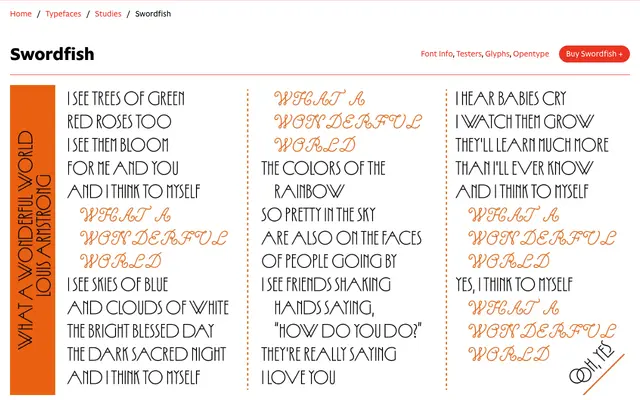
Swordfish
CAST · Giulio Galli · 2023
Swordfish specimen from CAST
An all-caps geometric display face by Giulio Galli that marries 1920s avant-garde letterform proportions with a jumping baseline borrowed from 1950s jazz record cover typography.
Drawing on typefaces such as Erbar-Grotesk, Futura and Kabel, as well as their 1970s phototype successors like ITC Plaza, Swordfish pairs varied-proportion geometric capitals with an OpenType jumping-baseline feature that animates the text in a manner typical of bebop-era album cover lettering. A suite of swash capitals, discretionary ligatures including nested letterforms, and wide Latin language coverage extend its versatility for signs, posters and menus. The single Regular weight keeps the offering focused entirely on display and titling applications.
An all-caps geometric sans designed explicitly for display use, drawing on 1920s–30s avant-garde letterforms with varied proportions and a jumping baseline feature derived from jazz record cover typography. The display orientation and OpenType jumping-baseline feature push it firmly into display rather than general geometric sans territory.